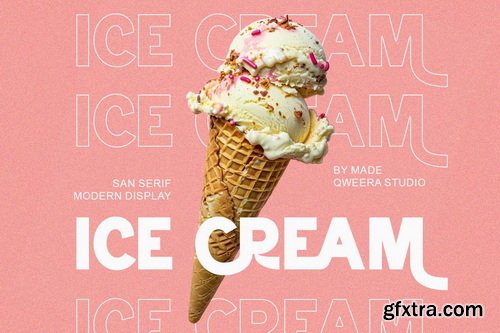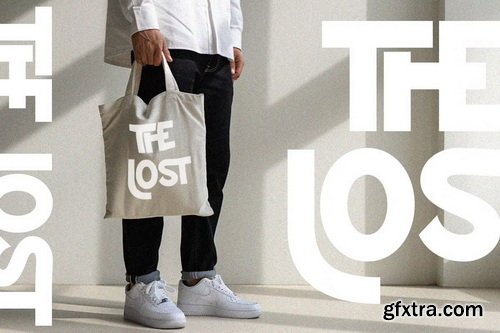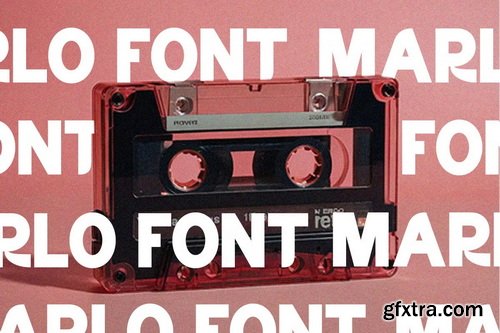
Marlho is a sleek sans-serif typeface that combines minimalist precision with stylish versatility. Featuring refined alternates and elegant ligatures, this font is expertly crafted for modern branding, clean logo designs, sophisticated packaging, and contemporary editorial layouts that demand clarity and style. With its crisp lines and balanced proportions, Marlho delivers exceptional adaptability for brands seeking both modernity and character. The thoughtfully designed alternates and ligatures allow for customized typographic expressions that maintain a professional yet distinctive aesthetic.